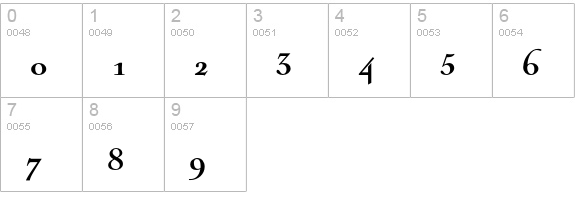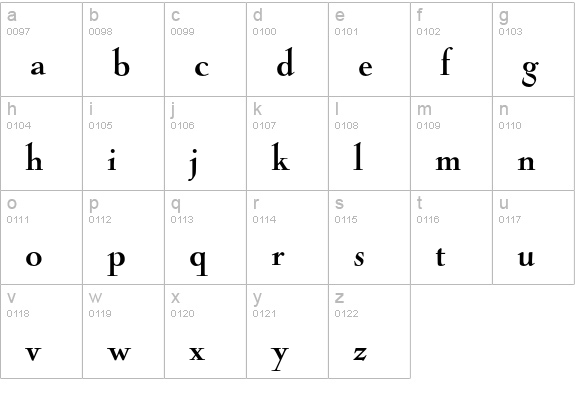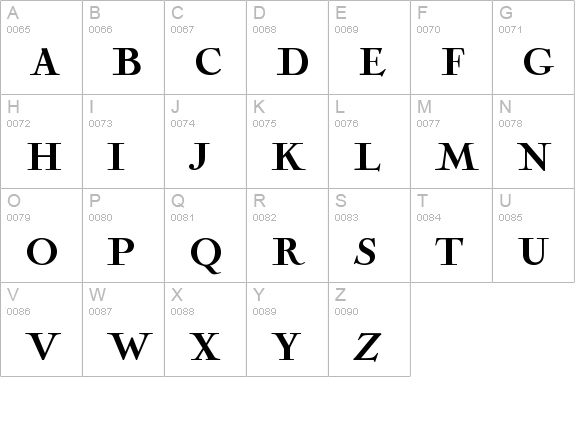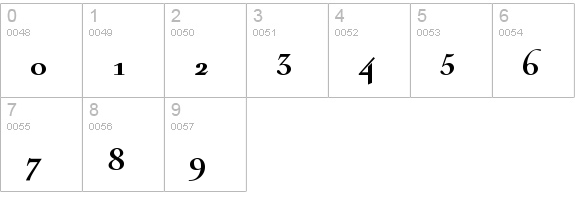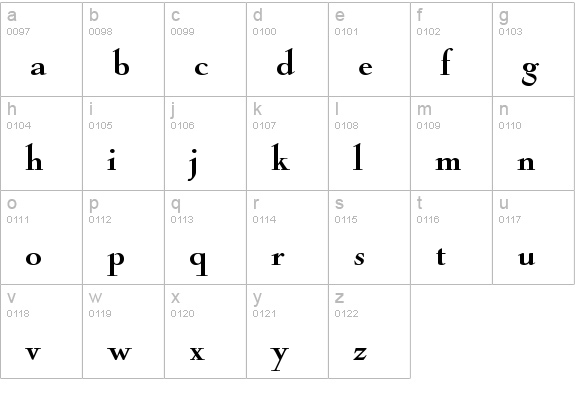
NicolasCochinEF-Black Font Details
NicolasCochinEF-Black is a maximum-weight, dramatic variant in the NicolasCochinEF typeface family \xE2\x80\x94 well suited to maximum-impact headlines, posters, and packaging.
NicolasCochinEF-Black is a bold and sophisticated font that exudes elegance and style. Its sleek lines and sharp angles make it perfect for creating eye-catching headlines and titles. The font's strong presence on the page commands attention and adds a touch of modern flair to any design project. What makes NicolasCochinEF-Black even more appealing is that it is available for free download at FontsMarket.com. This means that you can easily access this stunning font and incorporate it into your creative endeavors without any cost. Whether you are designing a poster, a flyer, or a website, NicolasCochinEF-Black will surely elevate your work and leave a lasting impression on your audience.